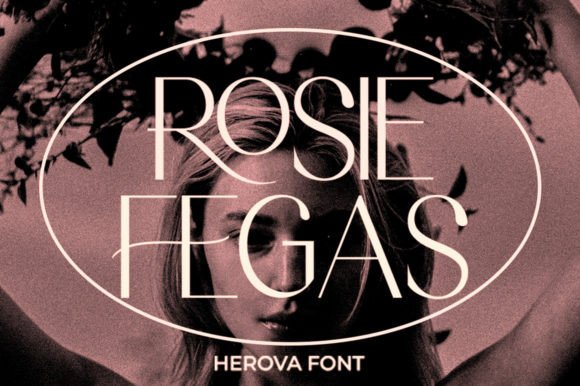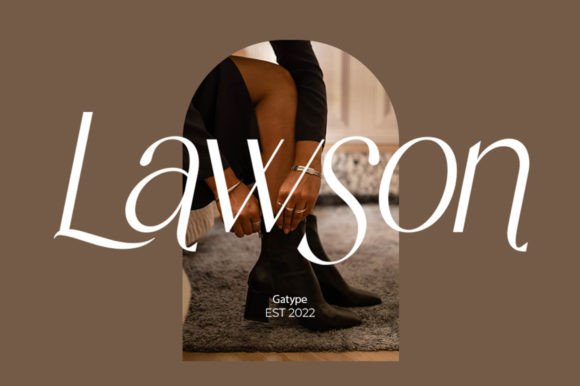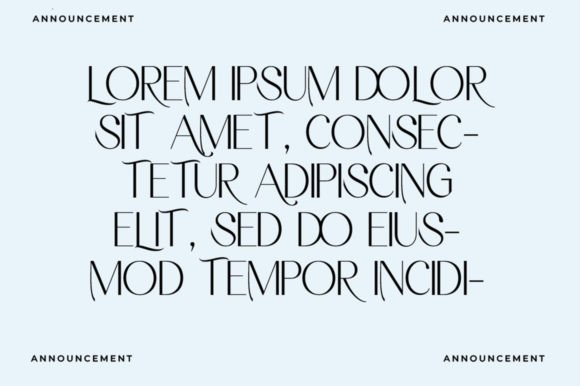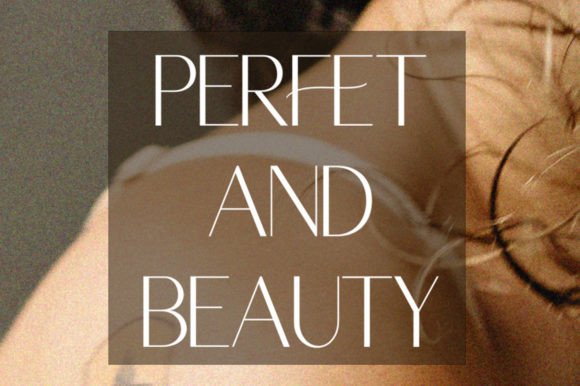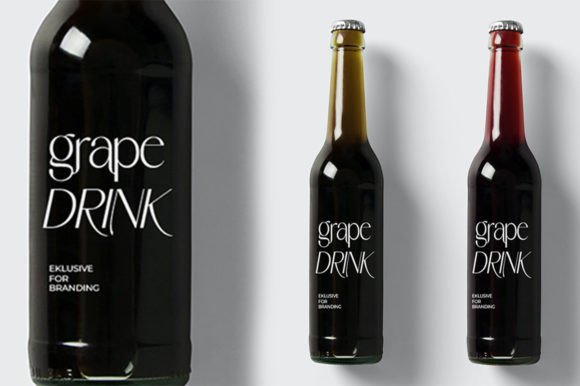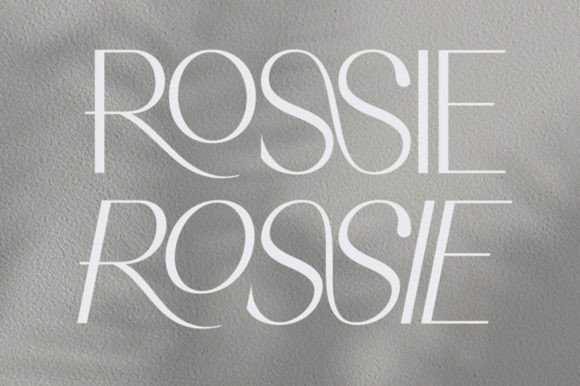
Introduction to Herova Font
Remember that moment when you’re brainstorming ideas for your latest design project and you just can’t seem to find the perfect font to tie everything together? You’ve scoured through countless options, but nothing seems to capture the essence of your creative vision. That’s where the Herova Font comes in – a modern display font that’s sure to add a touch of elegance and sophistication to any design.
Whether you’re working on a high-end branding project or a fun, lighthearted campaign, the Herova Font is an excellent choice. Its high-quality design makes it perfect for a variety of applications, from fashion and editorial design to clothing branding and packaging. With its transparent background and free download option, this font is an invaluable resource for any designer looking to elevate their creative project.
Key Features of Herova Font
- Comes with a transparent background, making it easy to customize and integrate into various designs.
- Includes a range of characters, including uppercase and lowercase letters, numbers, and special symbols.
- Designed to be highly legible at various resolutions, making it suitable for use in digital and print designs.
- Perfect for designers looking for a high-quality, free design resource to enhance their creative projects.
Honest Review: Herova Font
I recently had the chance to work with the Herova Font, and I have to say, it’s a fantastic addition to any designer’s toolbox. The font itself is a high-quality, modern design that’s perfect for a wide range of creative projects. With a transparent background, it’s incredibly versatile and can be used in a variety of contexts.
What works well with the Herova Font is its sleek, clean design. It’s perfect for projects where you want to convey a sense of professionalism and sophistication. I’ve used it for several design projects and have always been impressed with the results.
- ✨ Transparent background makes it incredibly versatile
- ✨ Suitable for a wide range of design applications
Overall, I’m really impressed with the Herova Font. It’s a fantastic resource for designers and is definitely worth checking out. Just be aware of the limitations, and you’ll be all set to create some amazing designs.
Tips for Getting the Most Out of Herova Font
For best results, use Herova Font with a transparent background to create a clean and simple design. Experiment with different font sizes and styles to create a unique look.
Herova Font is perfect for any creative project, including logos, business cards, and social media graphics. Its high quality design makes it ideal for presentations, documents, and websites.